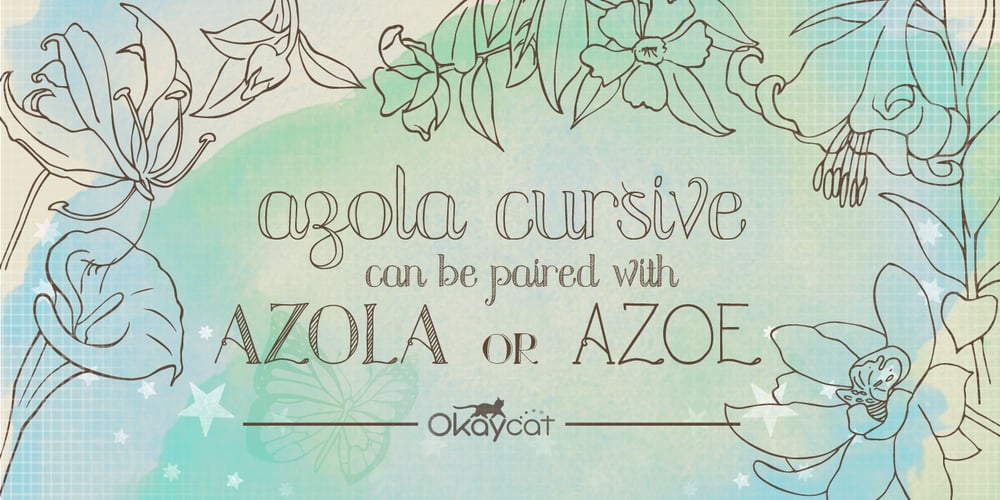
Azola Cursive
Azola Cursive font
Azola Cursive Font Family was designed by Natsuko Hayashida and published by Okaycat. Azola Cursive contains 3 styles and family package options. Azola Cursive is an elegant connected letter cursive script arriving with a family of detailed & artistic styles. Azola Cursive features diagonal hatched texture, outline & solid variations. Azola Cursive is extended, containing West European diacritics & ligatures, making it suitable for multilingual environments & publications. This new font family pairs well with the existing Azola (noncursive) family.